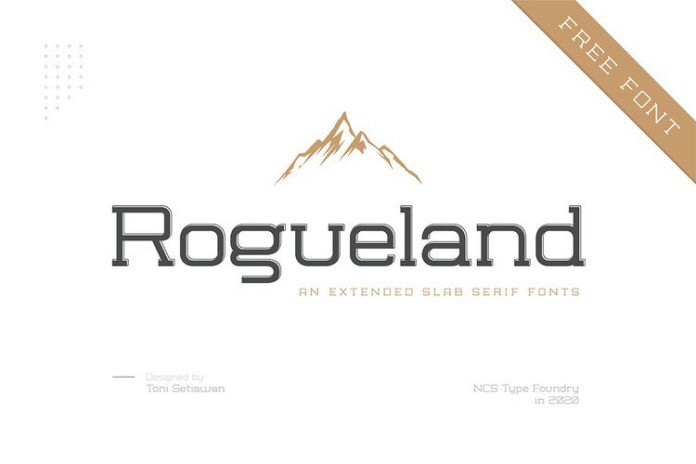
Rogueland Font
Rogueland Slab Font is a modern display slab inspired by the famous minimalist logo, perfect for the purposes of designing templates, brochures, videos, advertising branding, logos and more. This typeface comes in uppercase, lowercase, punctuations, numerals, symbols, web symbols, and multilingual support. Great for any titled or branded project. The goal of this font was to embody the bold, elegant, and scientific aura of the font in one typeface.